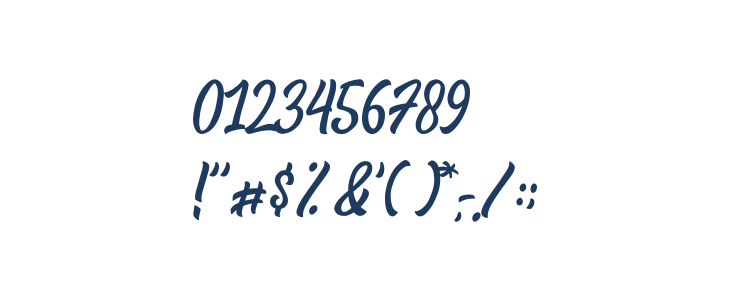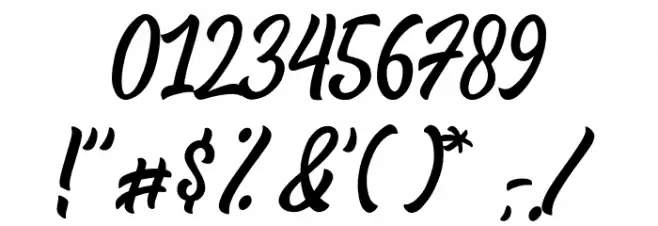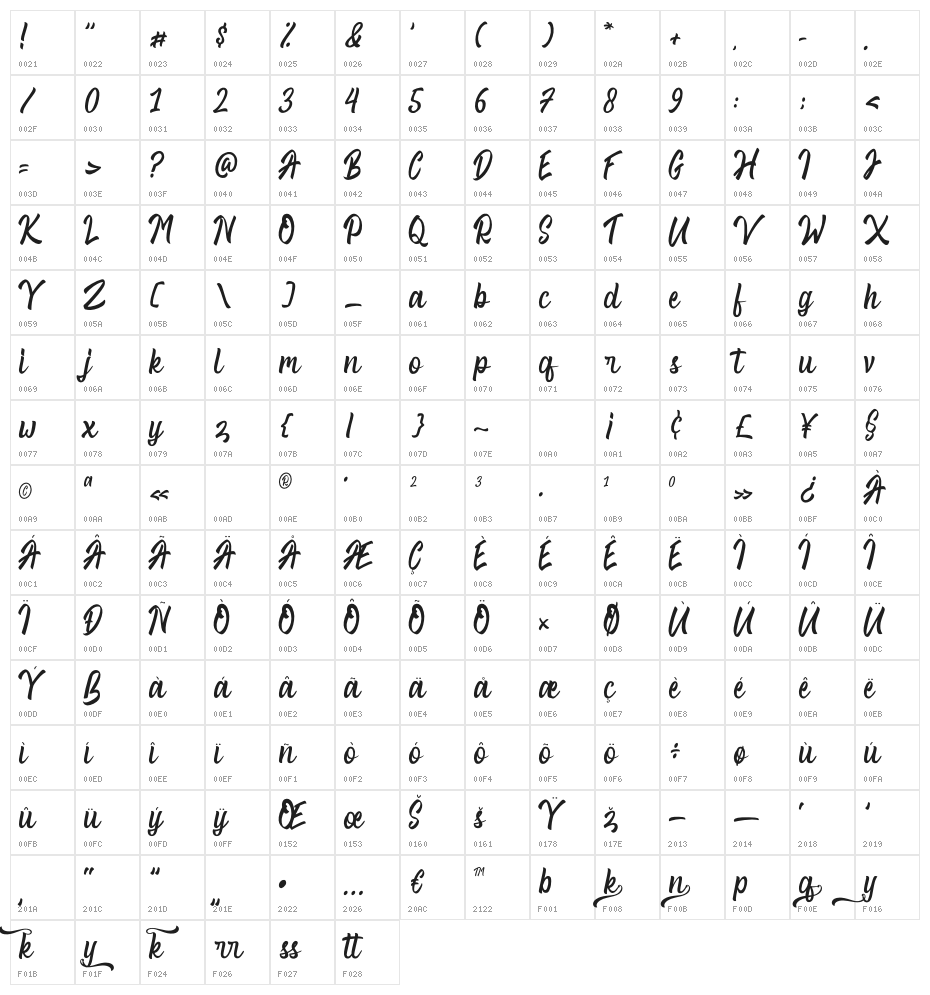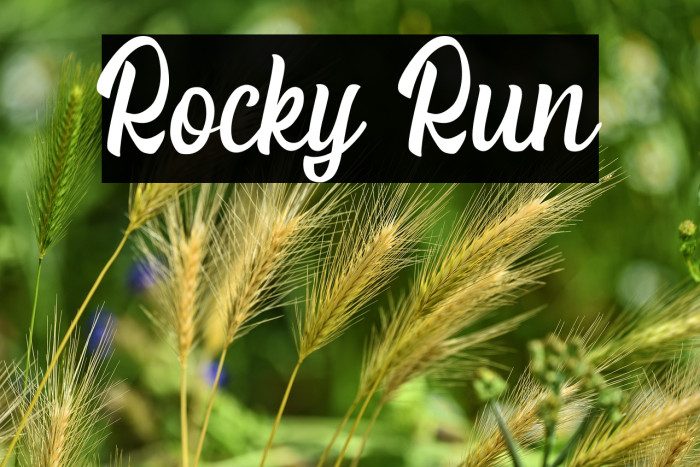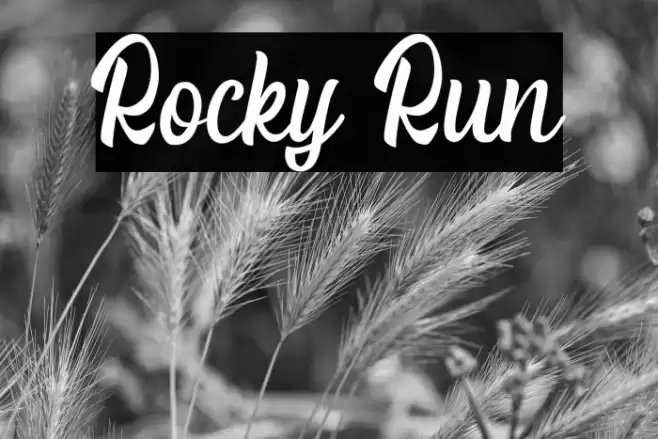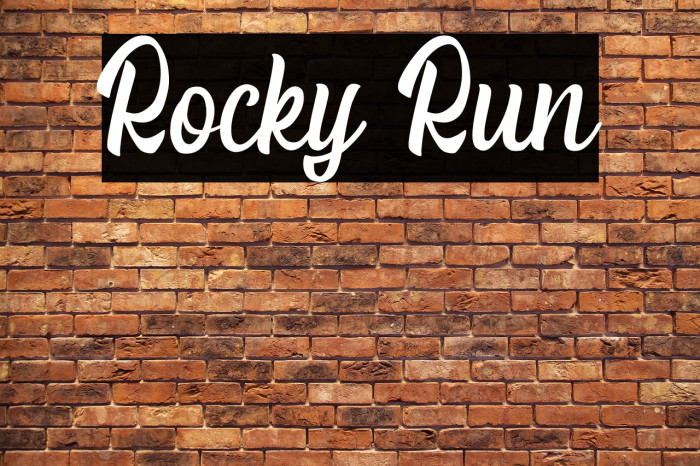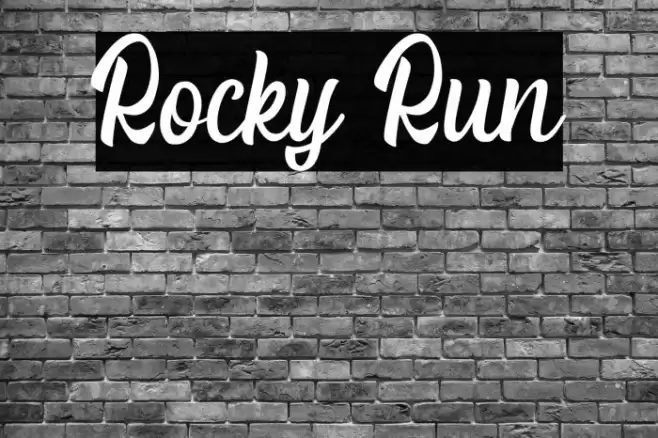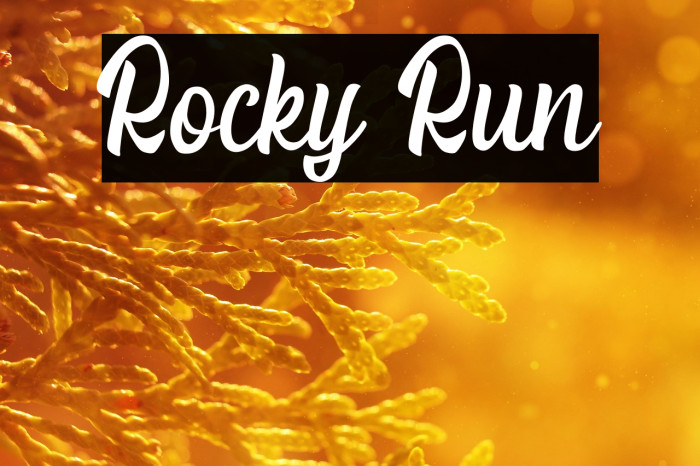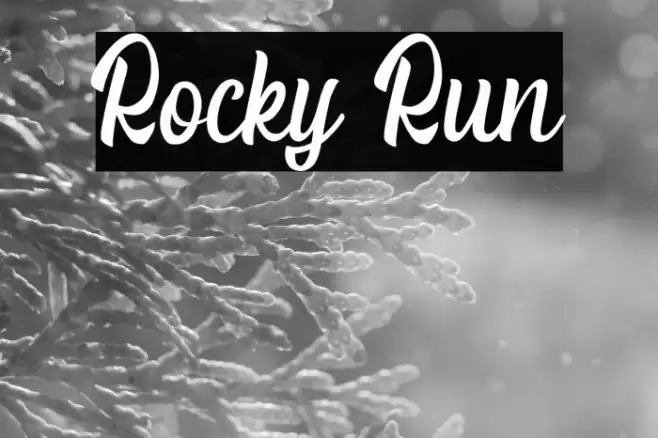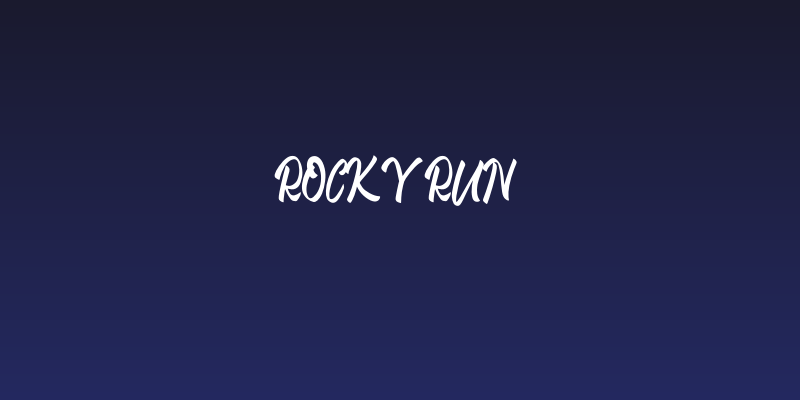
Rocky Run Font
Rocky Run Description
This font features a bold and dynamic script style, characterized by its flowing, cursive letterforms that convey a sense of movement and energy. The uppercase and lowercase letters are designed with a consistent slant, giving the text a cohesive and harmonious appearance. The strokes are thick and confident, with smooth curves and sharp angles that add a touch of elegance and flair. The numerals and special characters maintain the same stylistic approach, ensuring uniformity across all elements. This font's expressive nature makes it ideal for projects that require a personal or artistic touch.